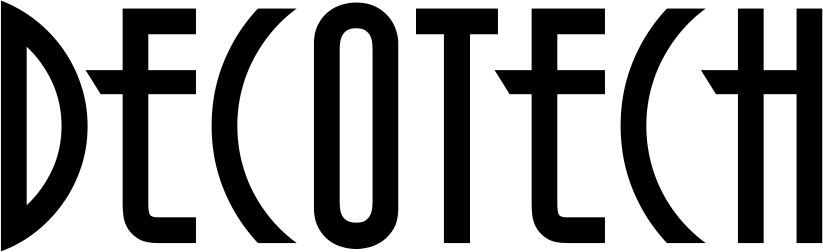
DecoTech Font
Designed byJustin Callaghan
There come times to times projects like posters, cards, websites, branding, and logos require a classic and vintage vibe which you can create with a retro font. So we offer you DecoTech, which would work excellently in those areas.
This typeface surprisingly comes in two styles and a full collection of characters containing both the uppercase and lowercase of the alphabet, the numbers, and the punctuation marks.